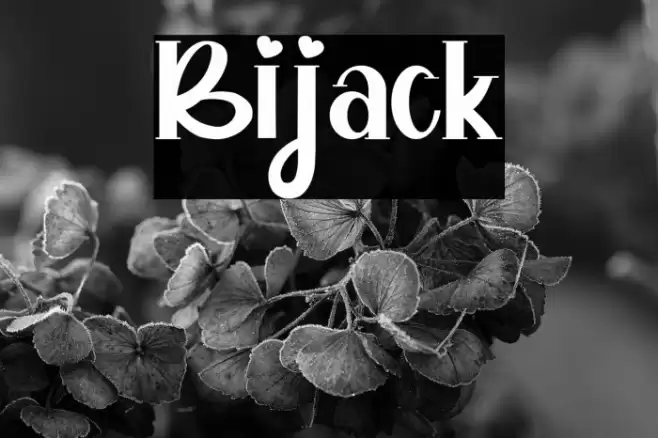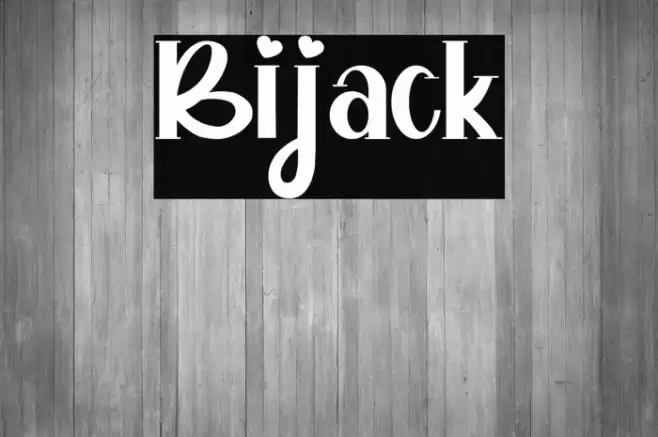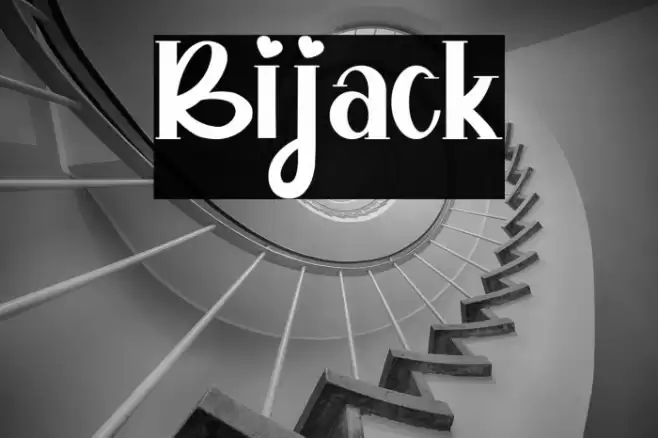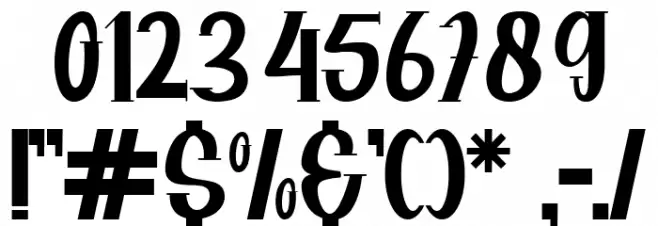
Bijack Font
Bijack Description
This font features a playful and bold design with a unique blend of thick and thin strokes, creating a whimsical and lively appearance. The uppercase letters exhibit a strong presence with rounded edges and a slight tilt, adding to the dynamic feel. Lowercase characters maintain the playful theme, with some letters incorporating heart-shaped elements, enhancing the font's charm. Numbers and special characters are consistent with the overall style, ensuring a cohesive look across all text elements. The font's distinctive style makes it suitable for creative and eye-catching designs.
A playful and bold font with whimsical, heart-accented characters from Regular fonts.
- Proposed Projects: Ideal for children's books, playful branding, greeting cards, and creative posters.
- Overall Style: Playful, Whimsical